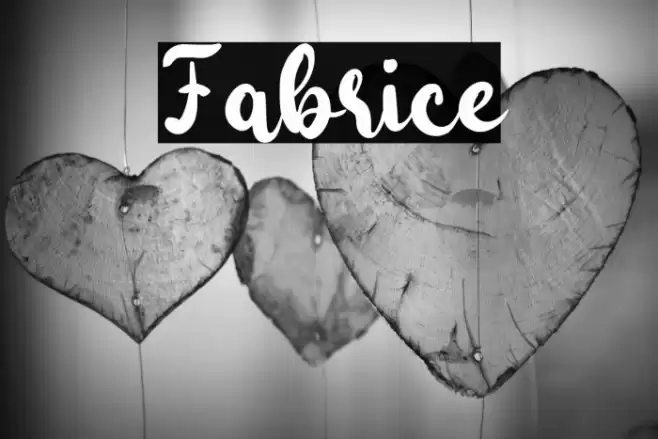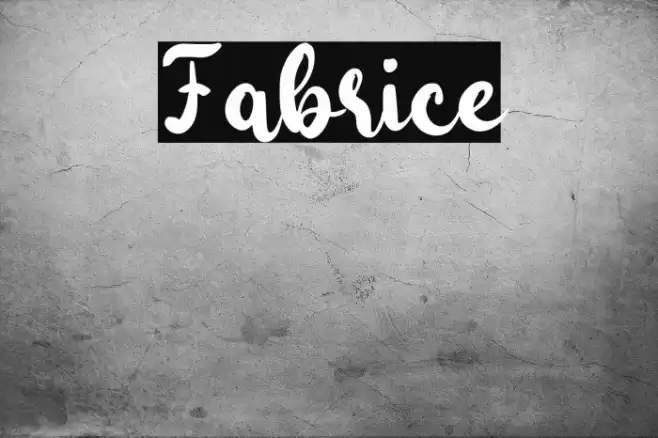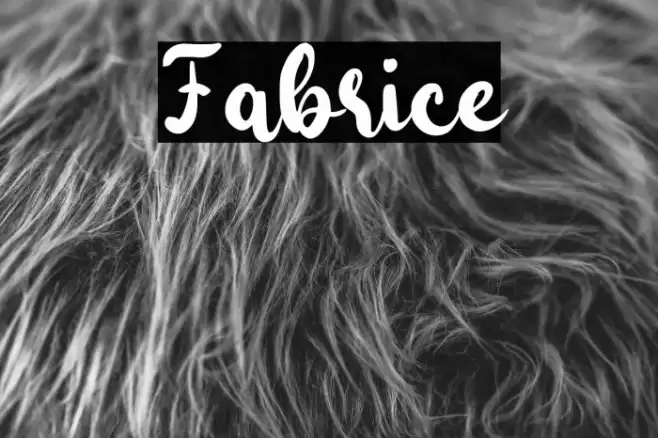
Fabrice Font
Fabrice Description
This font features a playful and dynamic script style with a handwritten appearance. The characters are bold and rounded, giving a friendly and approachable feel. The uppercase letters maintain a consistent height, while the lowercase letters exhibit a slight slant, adding to the casual aesthetic. The numbers are clear and easy to read, matching the overall style of the alphabet. Special characters are included, maintaining the same bold and rounded characteristics. This font is suitable for projects that require a personal touch, such as invitations, greeting cards, or branding materials.